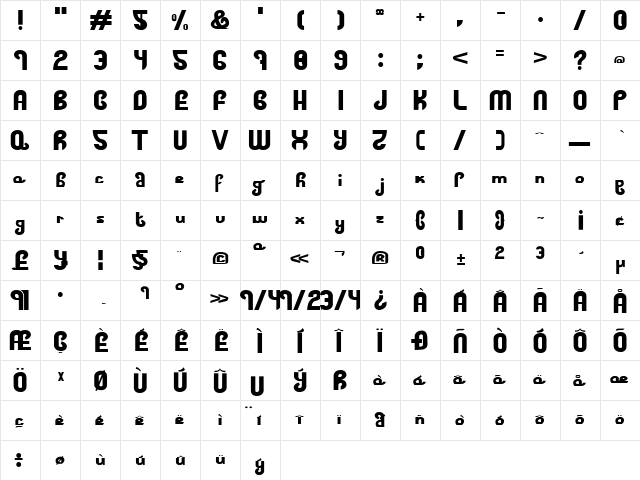
Fat Vodka Regular
| Foundry | Tha?s Trizoli |
| Designer | Tha?s Trizoli |
Design Context for Fat Vodka Typeface
Fat Vodka offers clean, dependable letterforms without strong stylistic allegiance, making it a practical choice for designers who need flexibility.